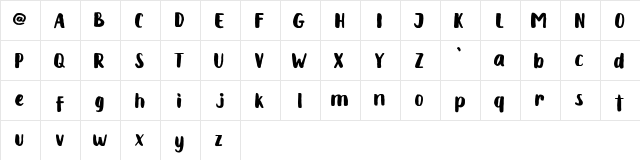
Chabitta Chabitta
| Foundry | Farul Arjianto |
| Designer | Farul arjianto |
Design Context for Chabitta Typeface
Chabitta is a composed and adaptable typeface that performs quietly and consistently across a wide range of design contexts.